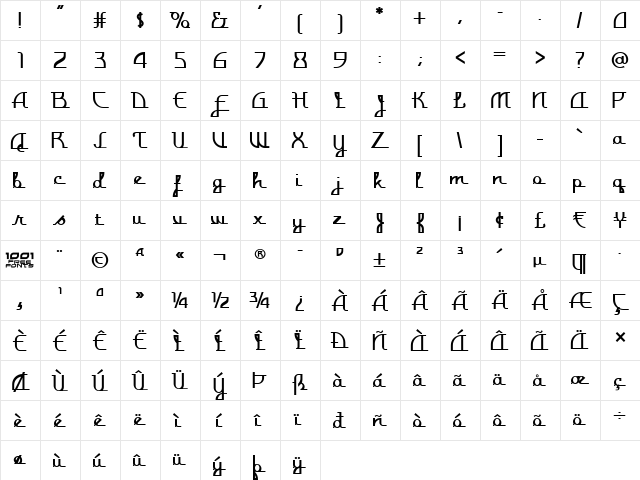
Monterey Popsicle NF Regular
| Foundry | Nick's Fonts |
| Designer | Nick Curtis |
Design Context for Monterey Popsicle NF Typeface
Monterey Popsicle NF is a composed and adaptable typeface that performs quietly and consistently across a wide range of design contexts.